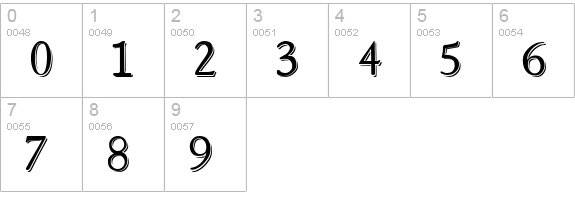
NewStyleSmallCaps Embossed Font Details
Introducing the exquisite NewStyleSmallCaps Embossed font, a sophisticated typeface that exudes elegance and charm. With its unique small caps design and stunning embossed effect, this font is perfect for adding a touch of luxury to your projects. The NewStyleSmallCaps Embossed font strikes the perfect balance between classic and modern, making it a versatile choice for a wide range of design applications. Best of all, this stunning font is available for free download at FontsMarket.com. Whether you're working on a branding project, invitations, or any other design endeavor, the NewStyleSmallCaps Embossed font is sure to make a lasting impression. Elevate your creations with this beautiful typeface and let your creativity shine with every letter. Download it today and add a touch of sophistication to your designs!